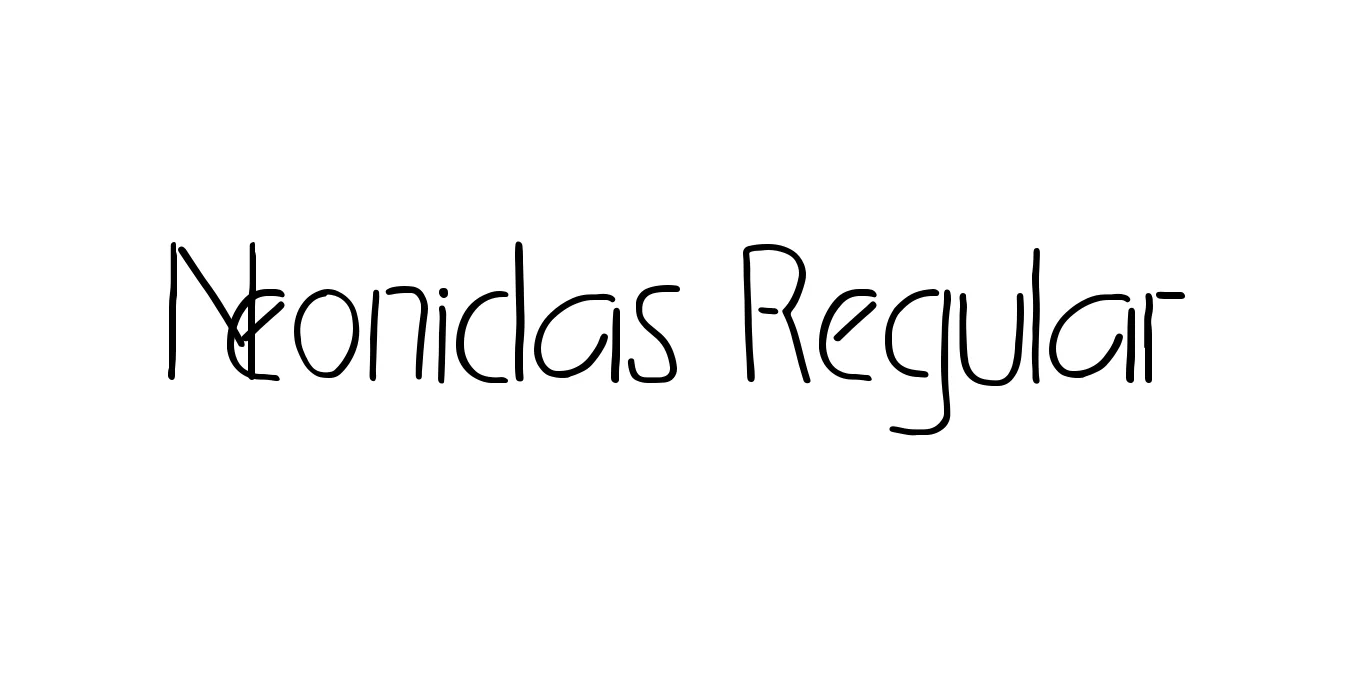
Neonidas Regular
Designed by The Northern Block (Jonathan Hill)
Neonidas Regular is a contemporary monolinear script designed to replicate the aesthetic of traditional glass neon tubing. Created by The Northern Block, this typeface emphasizes fluid connectivity and rounded terminals, capturing the nostalgic essence of mid-century Americana and classic nightlife signage. Its design ensures that the strokes maintain a consistent weight, which is essential for achieving a realistic glowing effect in digital design software.
Beyond its retro roots, the font is highly adaptable for modern creative projects, including cyberpunk-themed visuals and sleek web interfaces. The open counters and carefully balanced letterforms provide excellent legibility for a display face, making it a reliable choice for designers looking to blend vintage craftsmanship with clean, digital precision. It remains a staple for high-impact branding that requires a distinct, luminous personality.
Neonidas Regular Best Uses
Perfect for creating realistic neon light simulations for storefronts and digital banners.
Ideal for bar, restaurant, and nightclub logos looking for a trendy, vintage vibe.
Excellent for music festivals and nightlife promotions to grab attention.
Great for high-impact quotes and vibrant Instagram graphics.
Suited for synthwave, retrowave, and cyberpunk aesthetic illustrations.